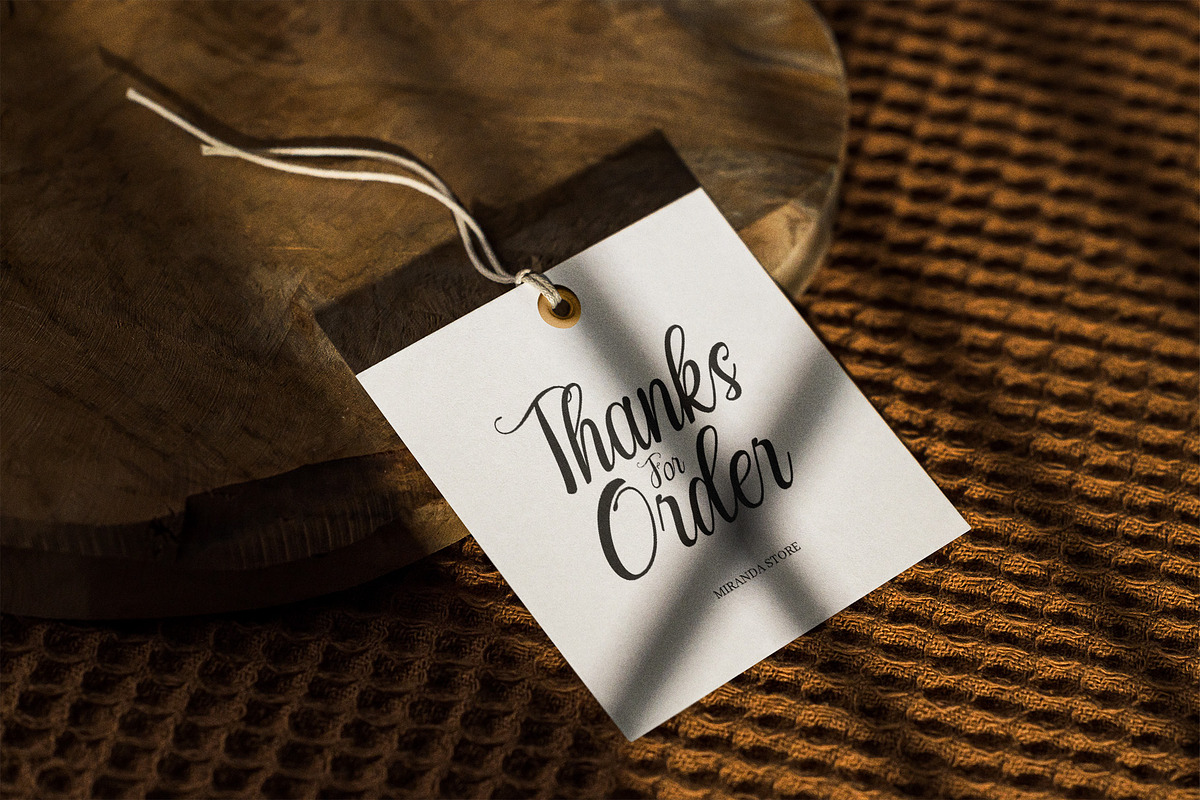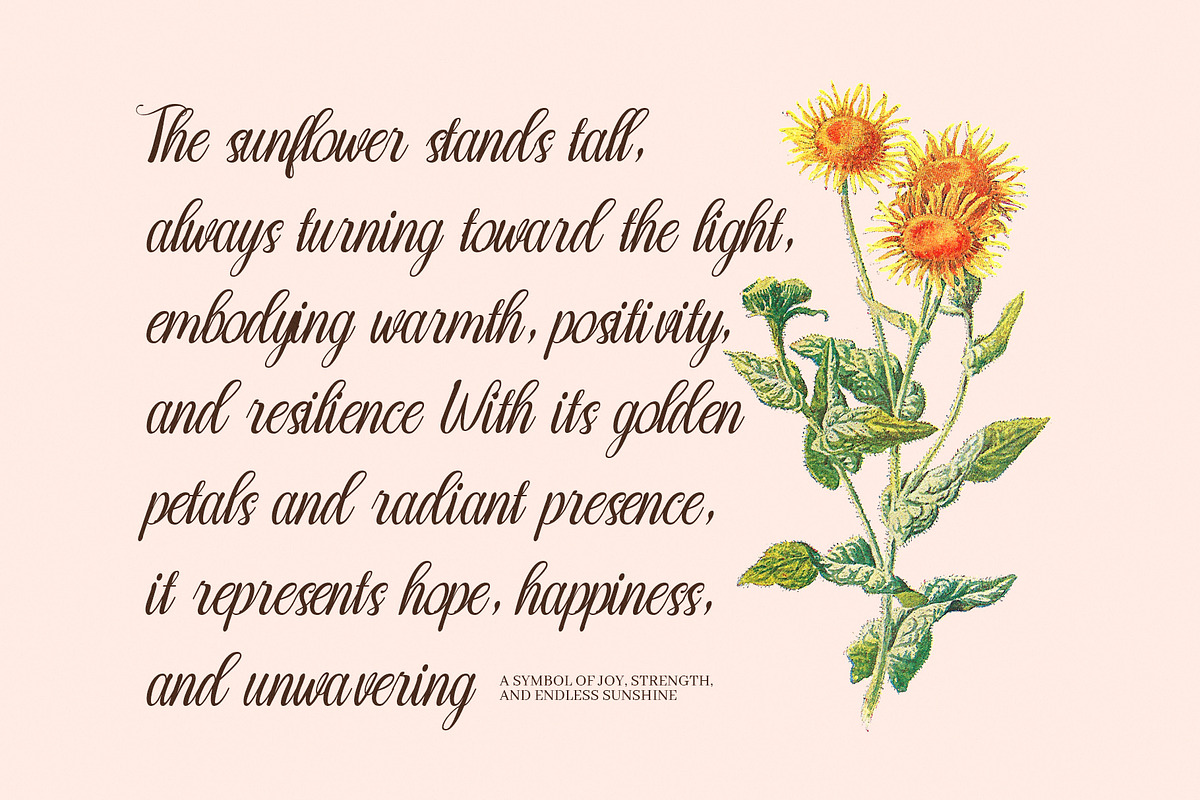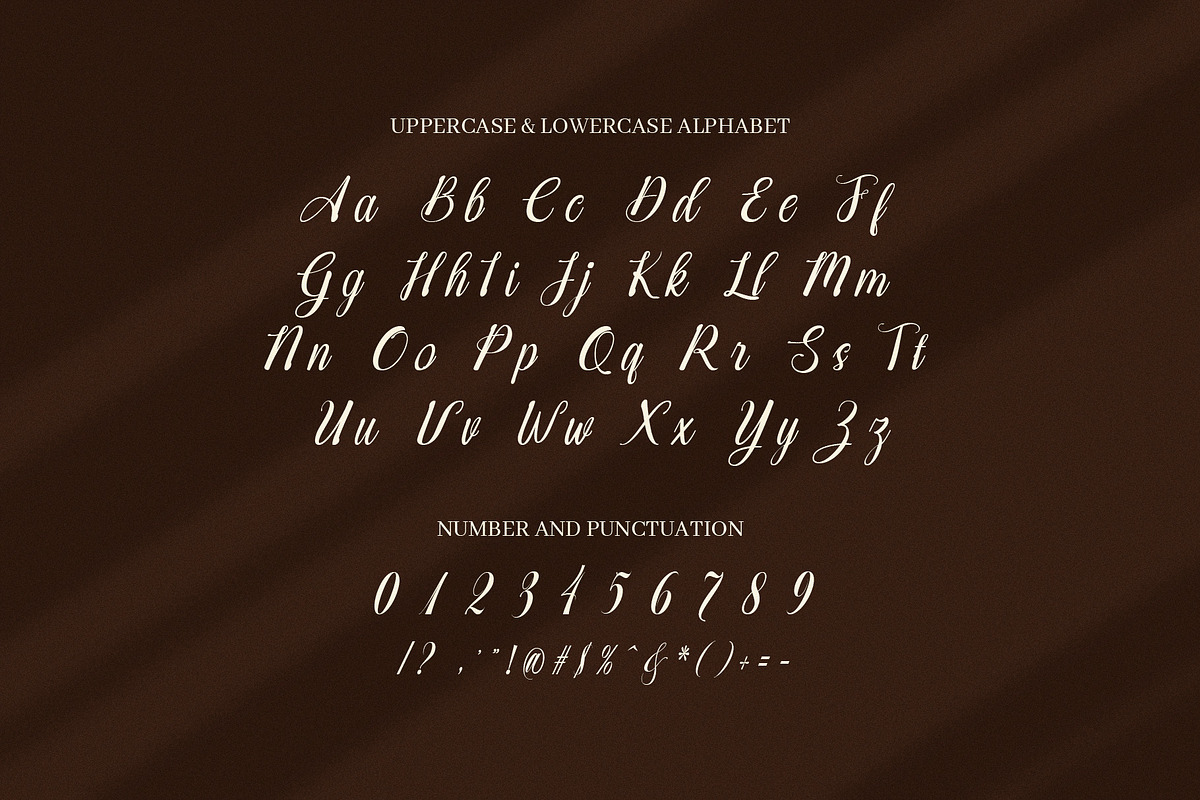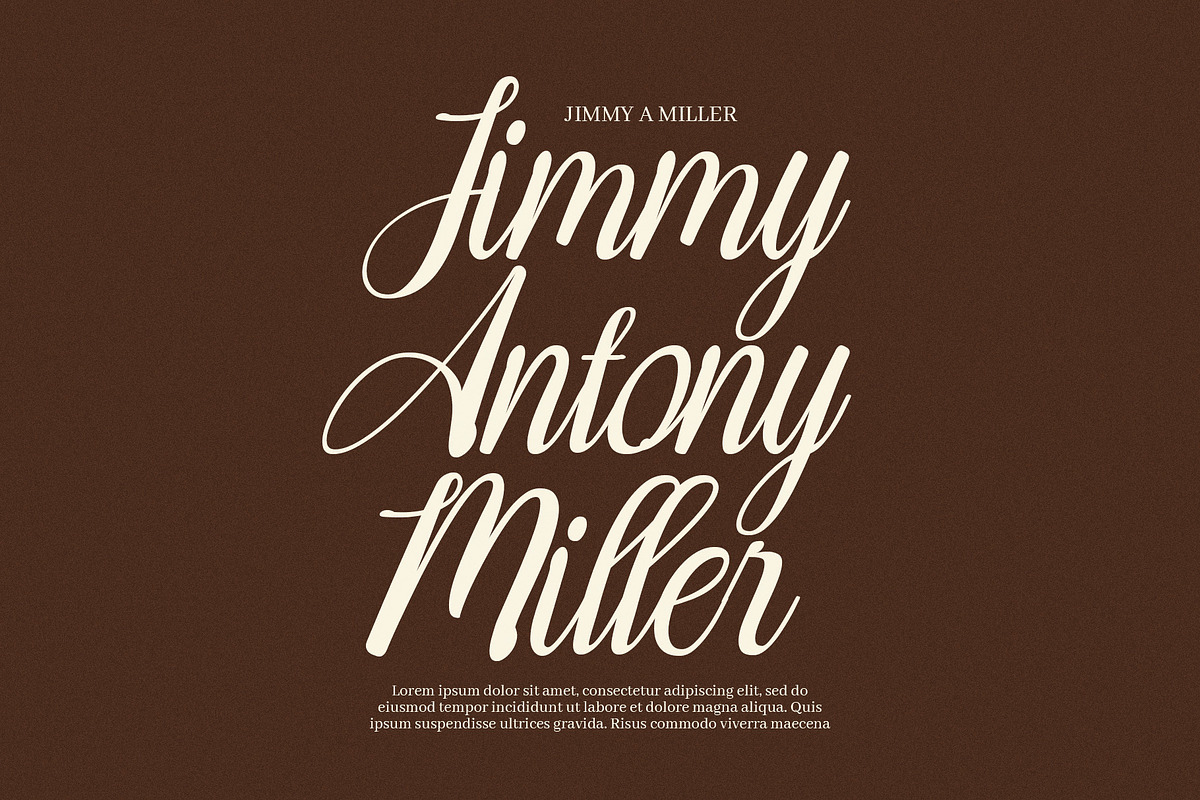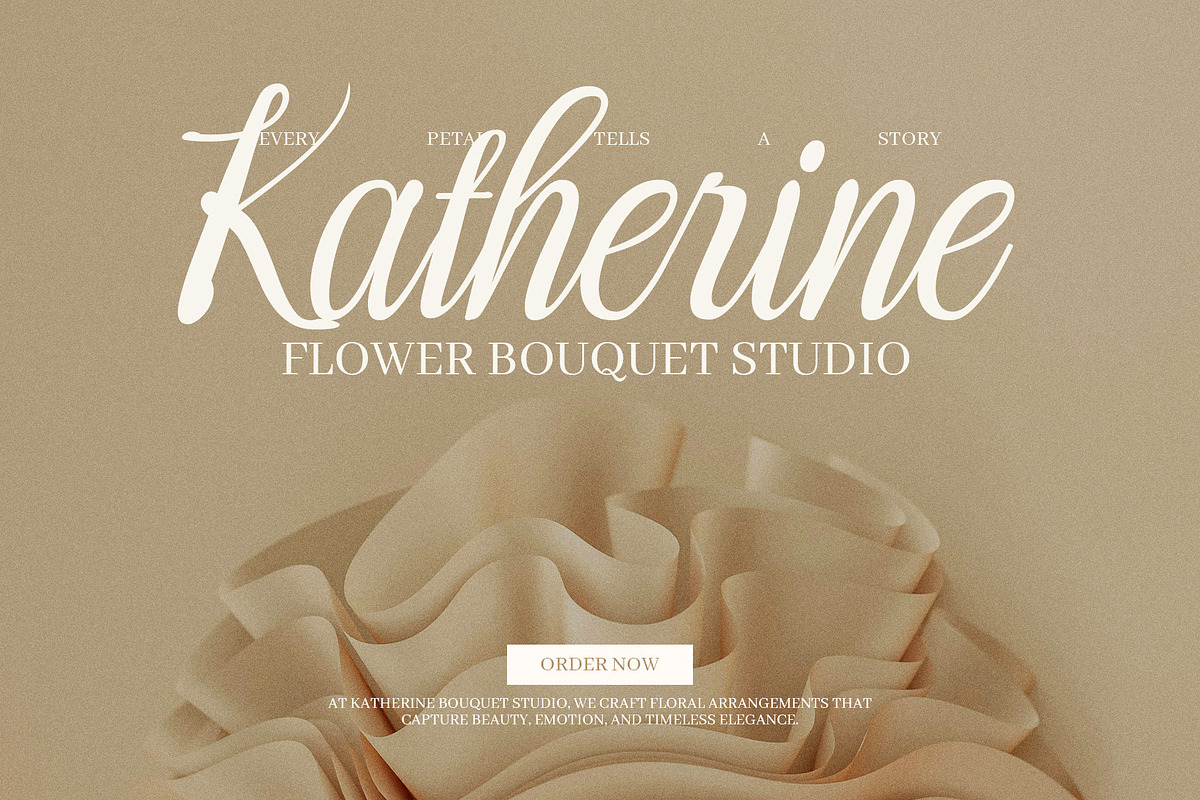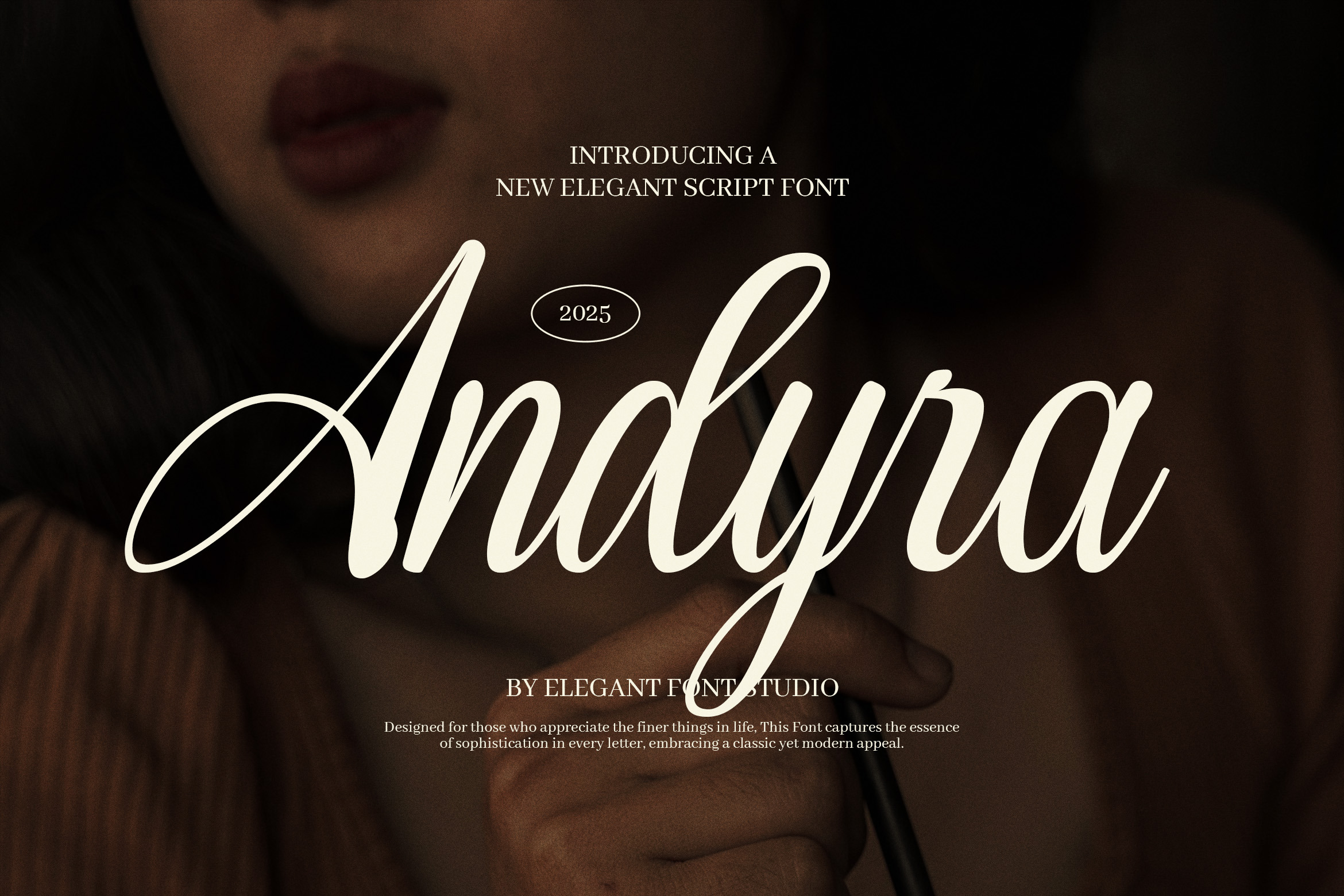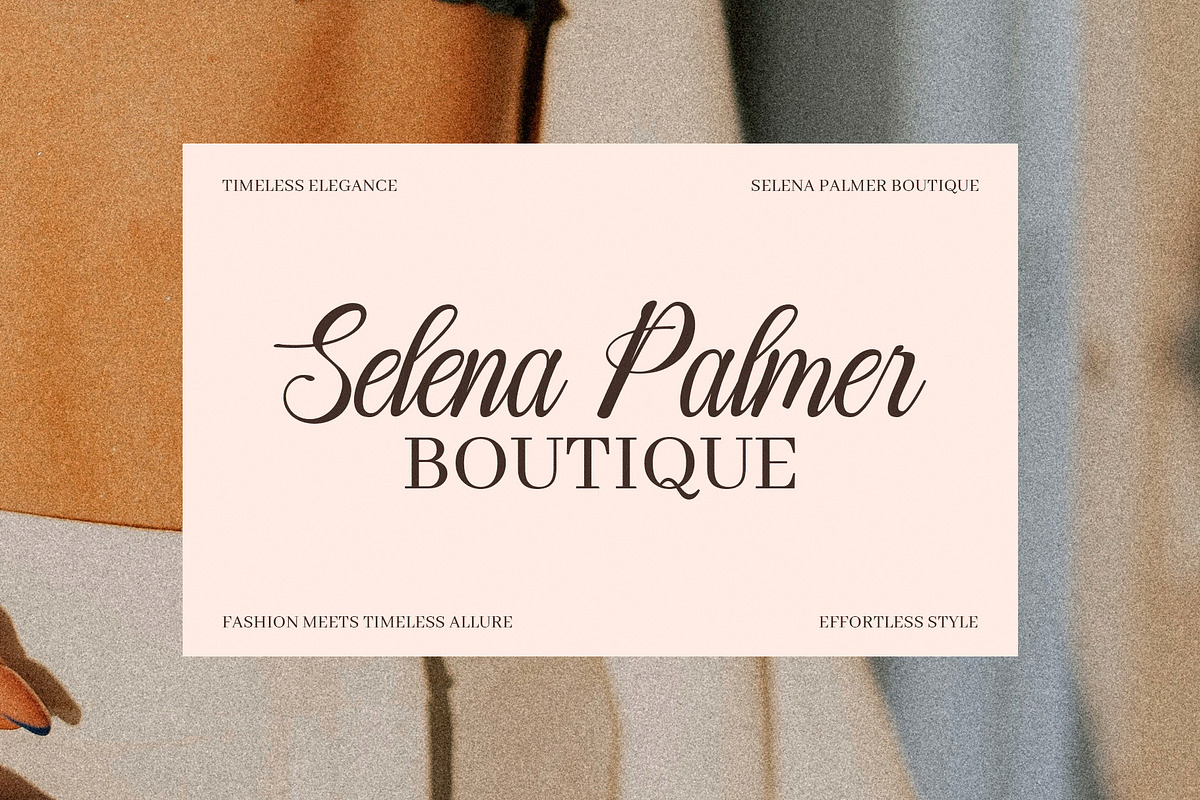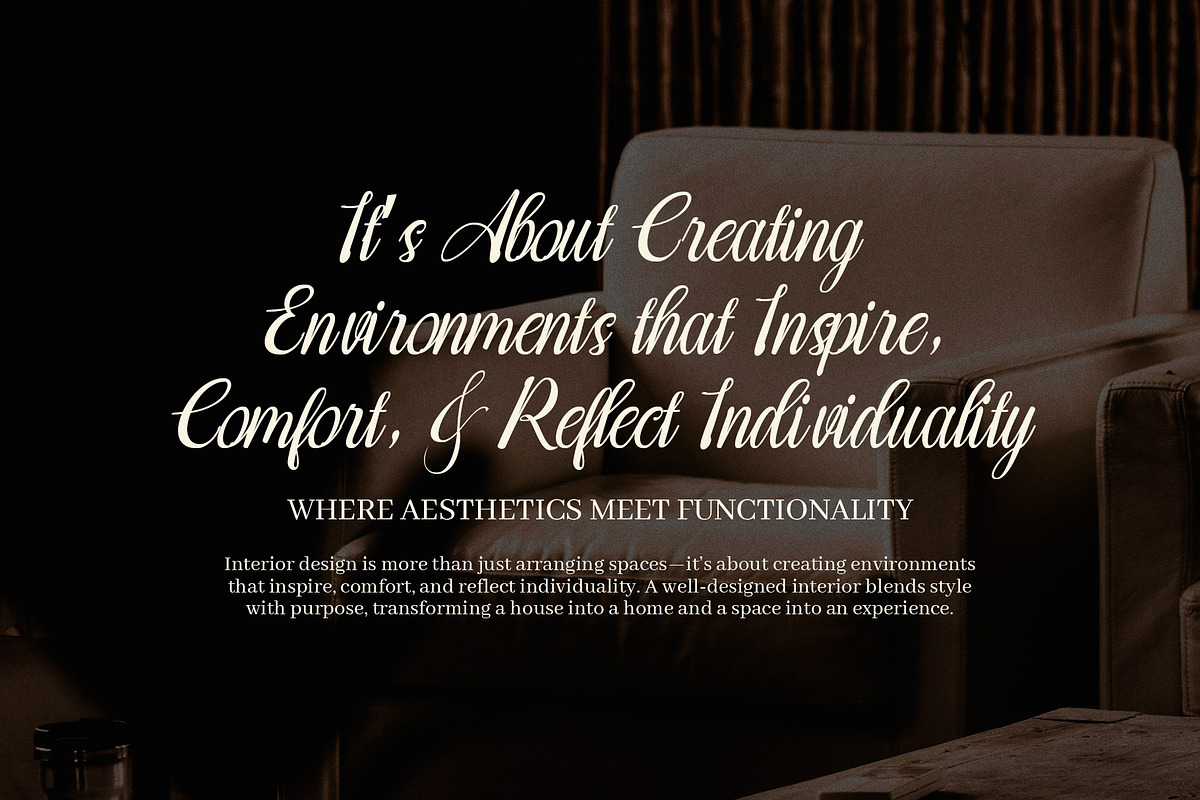
Andyra Script Font
Andyra Script Font is a modern calligraphy script that brings a perfect blend of elegance, charm, and handcrafted artistry to your designs. Created with a refined attention to detail, Andyra Script features fluid, graceful strokes and an extensive set of alternate characters, making it a standout choice for creatives who want to infuse sophistication into their work.
With its romantic curves and artistic flair, this font is ideal for projects that call for a touch of luxury and personalization. Whether you're working on a high-end branding identity, designing a timeless wedding invitation, or crafting an eye-catching logo, Andyra Script offers the flexibility and beauty you need to make your designs unforgettable. It also shines on album covers, magazine layouts, event posters, and personalized stationery—anywhere you want to add elegance and authenticity.
What truly sets Andyra Script apart is its dynamic range of calligraphic alternates and ligatures. These features allow you to customize each word and letter for a truly unique and hand-lettered look. It's fully compatible with Canva, Adobe Illustrator, Photoshop, and most popular design software, ensuring a smooth and creative workflow for professionals and hobbyists alike.
Whether you’re a graphic designer, business owner, or creative entrepreneur, Andyra Script helps you communicate style, elegance, and creativity through typography. Its stylish form also makes it perfect for fashion branding, beauty packaging, social media graphics, and website headers.
With its luxurious aesthetic and high versatility, Andyra Script Font doesn’t just decorate your text—it transforms it into visual poetry. Let your words dance across the page with the timeless beauty of Andyra, a script font that’s as expressive as your vision.